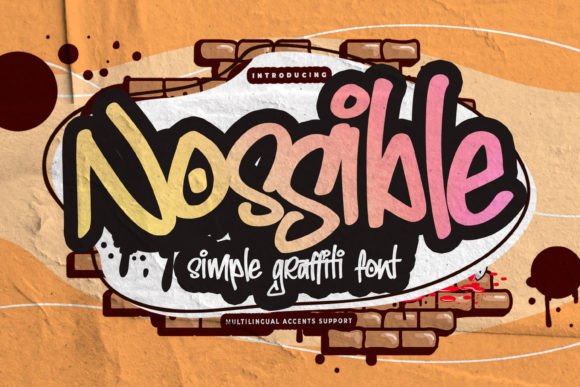
Welcome to the world of Nossible Font, a display font that stands out from the crowd and is perfect for creative enthusiasts. Created by Gassstype Studio, Nossible Font is an authentic and classy graffiti font that will add a natural touch to your designs.
With its unique style, Nossible Font is perfect for adding a watermark on photography or using it for logos and branding. It is also ideal for invitation designs, advertisements, product packaging, stationery, label designs, wedding designs, and special events.
What makes Nossible Font stand out is its natural and handmade touch that adds a beautiful and organic feel to your designs. It is perfect for those who are looking for a font that exudes authenticity and creativity.
Nossible Font is the perfect choice for those who want to create eye-catching designs that leave a lasting impression. Whether you're a graphic designer, marketer, or creative enthusiast, this font will help elevate your designs and make them stand out from the rest.